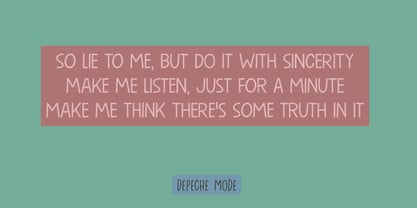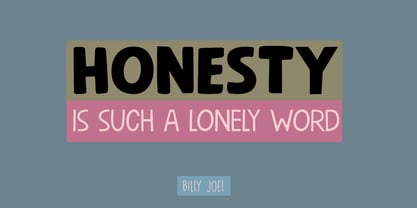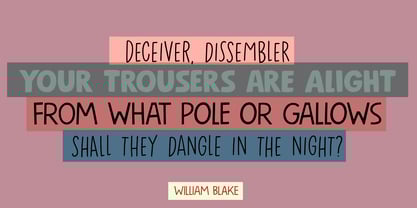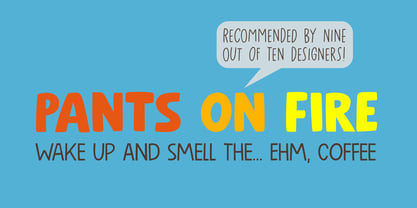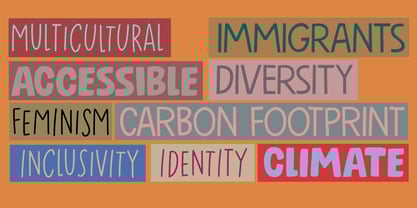
Pants On Fire
by Hanoded
The Pants On Fire Font Family was designed by David Kerkhoff and published by Hanoded. Pants On Fire contains 6 styles and family package options.
A handmade font family, full of character, full of opportunities! Pants On Fire comes in three styles: a roughish Bold, an angular Medium and a seriously charming Lightweight. Use the Bold for expressive designs and daring product packaging; the medium style for eye-catching book covers and posters. The versatile lightweight, line font, on the other hand, can be used for just about anything. All these styles were designed to complement each other; their design leans toward display use — headlines, logos, posters — but they’re balanced enough to work across different projects without feeling chaotic. In short, if you need to get a message across, or if your design yearns for a font family with a human touch, then Pants On Fire delivers.
About Hanoded
Hanoded is run by Dutchman David Kerkhoff. His fonts are a mishmash of styles, as he just creates whatever pops into his head. You will find a lot of brush fonts in his collection, as his favourite tools are brushes and Chinese ink, with cartoon style fonts and script fonts complementing his repertoire. Aside from making fonts, David occasionally guides tours in far-flung places, renovates his '30's house and tries reasoning with his wife and (teenage) kids. Not an easy task!